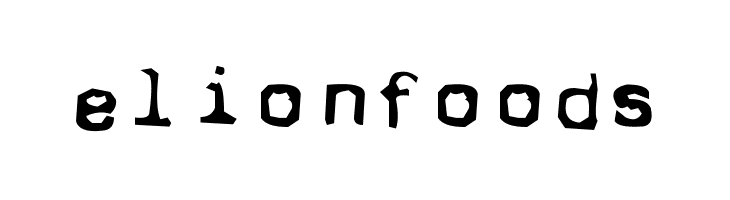
A dot matrix style font with a condensed, pixelated appearance.
A bold, geometric font with a digital, pixelated style.
A modern, dot-based font with a digital and futuristic aesthetic.
A bold, geometric outline font with a futuristic, digital aesthetic.
An intricate and decorative font with ornate embellishments and a vintage flair.
A bold, distressed font with a rugged, vintage appearance.